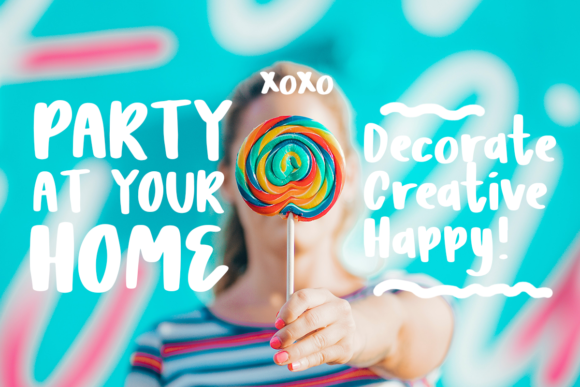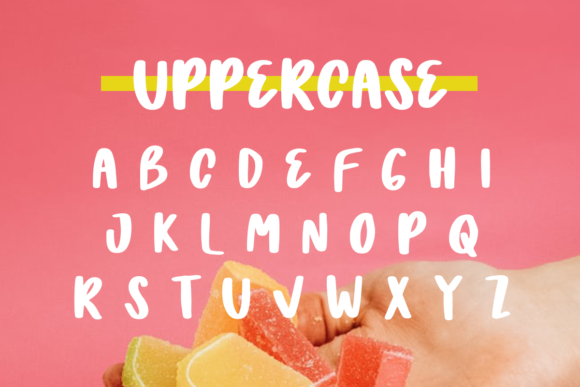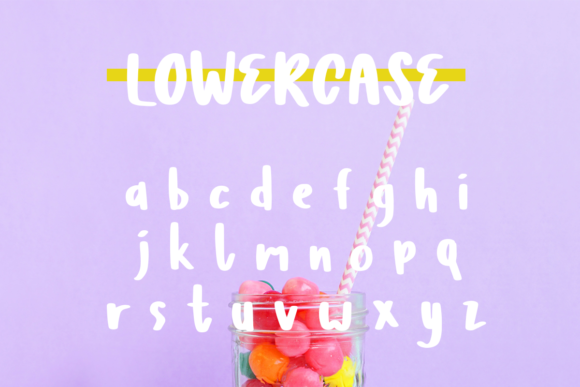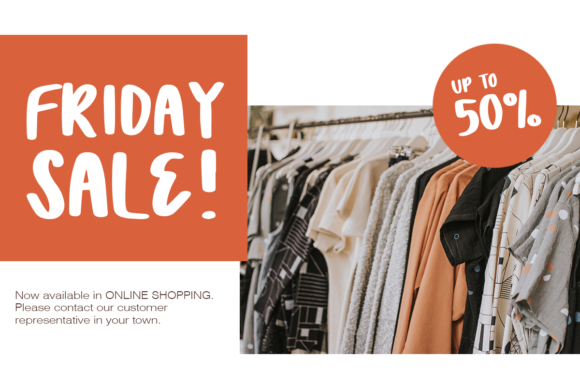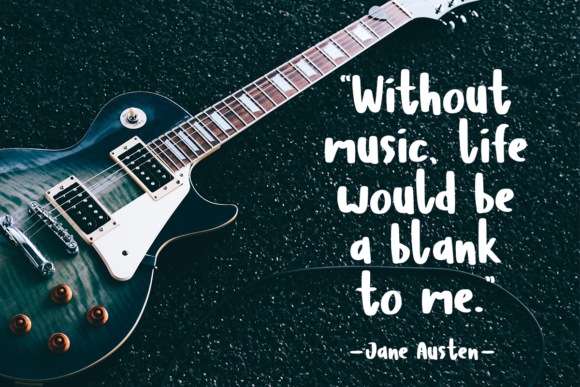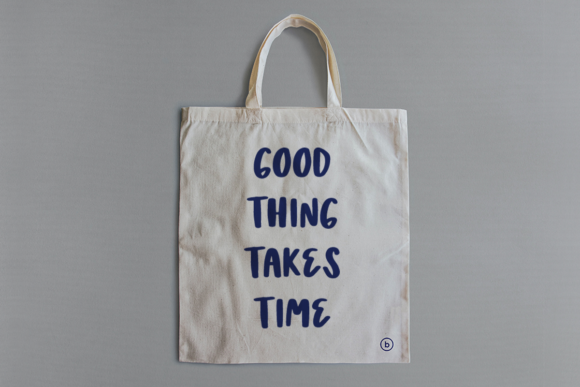
Barela Font: The Sweet and Quirky Display Font for Creative Designs
Are you a designer or crafter looking for a unique and versatile font to elevate your creative projects? Look no further than Barela Font! This sweet and quirky display font is perfect for adding a touch of personality to your designs. With its natural and distinctive style, Barela Font can be used in a wide range of applications, from branding and advertising to crafting and DIY projects.
The Unique Characteristics of Barela Font
Barela Font is a one-of-a-kind display font that boasts a charming and whimsical feel. Its natural and unique style makes it incredibly fitting to a large pool of designs, allowing you to experiment with different creative ideas. The font’s quirky characteristics add a touch of playfulness and friendliness, making it perfect for designs that require a personal and approachable tone.
What Makes Barela Font So Versatile?
The versatility of Barela Font lies in its ability to adapt to different design styles and themes. Whether you’re creating a logo, poster, or social media graphic, Barela Font can be used to add a touch of elegance and sophistication. Its unique style also makes it perfect for crafty and DIY projects, such as handmade cards, scrapbooking, and crafting.
How to Use Barela Font in Your Designs
Using Barela Font in your designs is incredibly easy. Here are a few tips to get you started:
- Pair Barela Font with bold and bright colors to create eye-catching headings and titles.
- Use Barela Font to add a touch of personality to your branding and advertising materials.
- Experiment with different font sizes and styles to create visual interest and hierarchy.
- Combine Barela Font with other fonts to create a unique and cohesive design.
Barela Font in Crafting and DIY Projects
Barela Font is not just limited to digital designs. Its unique style and charm make it perfect for crafting and DIY projects, such as:
- Handmade cards and invitations
- Scrapbooking and journaling
- Crafting and sewing projects
- DIY signs and decorations
Tips for Getting the Most Out of Barela Font
To get the most out of Barela Font, here are a few tips:
- Experiment with different design styles and themes to find the perfect fit for your project.
- Use Barela Font to add a touch of personality and whimsy to your designs.
- Don’t be afraid to combine Barela Font with other fonts and design elements to create a unique look.
- Take advantage of the font’s versatility and use it in a variety of applications.
In conclusion, Barela Font is a sweet and quirky display font that is perfect for designers and crafters looking to add a touch of personality to their creative projects. Its natural and unique style makes it incredibly versatile, and its charm and whimsy make it perfect for a wide range of applications. With Barela Font, the only limit is your imagination!